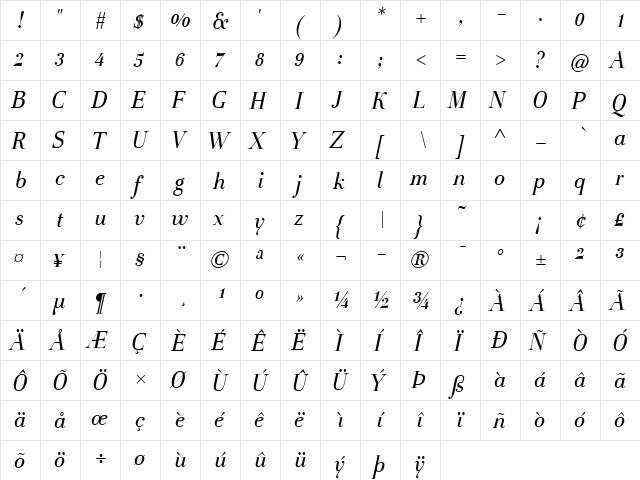
HolmenTF-RegularItalic Regular Font Preview
HolmenTF-RegularItalic Regular
HolmenTF-RegularItalic Regular Font Details
| Foundry | FSI FontShop International GmbH |
| Designer | Per Jorgensen |
Design Context for HolmenTF-RegularItalic Typeface
HolmenTF-RegularItalic takes a measured approach to typography — its balanced proportions and neutral character make it a reliable workhorse for both digital and print work. The dynamic lean of this cut emphasises speed and emphasis in any layout.
Pro Tip: Use HolmenTF-RegularItalic for emphasis, pull quotes, and subheadings where its slanted energy can add rhythm to the layout.